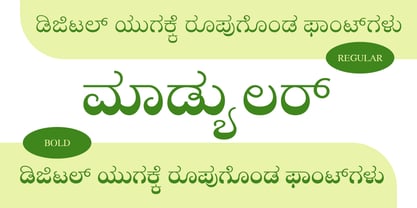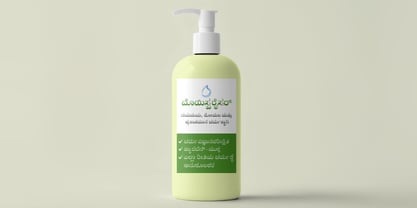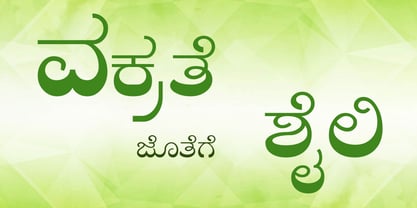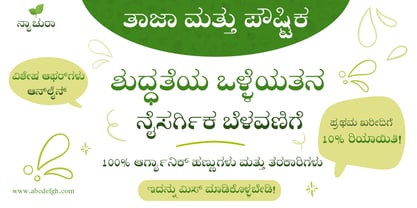
Shree Kannada 0889
by Modular InfoTech
The Shree Kannada 0889 Font Family was designed by Modular Infotech and published by Modular InfoTech. Shree Kannada 0889 contains 4 styles. More about this family
Shree Kannada 0889 is a contemporary text style typeface designed for clarity and efficiency. This versatile font family offers 2 weights — Regular and Bold, with corresponding italics. The strokes show restrained contrast and gently tapered terminals, producing a calm, neutral texture that reads well at small sizes. Overall, the design balances space efficiency with clarity, making it a dependable choice for extended Kannada copy. The typeface is ideal for magazines, books, invitations, and corporate reports where economical line length and high legibility are required. It is commonly used to create striking banners and large hoardings, making it an essential tool for impactful communication in multiple contexts. It is also well suited to multilingual layouts, web platform, and wayfinding or signage.
Designers: Modular Infotech
Foundry: Modular InfoTech